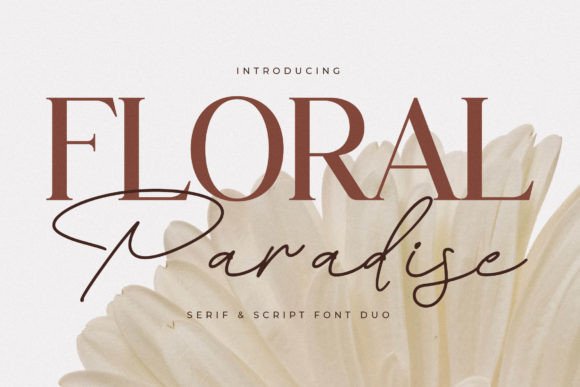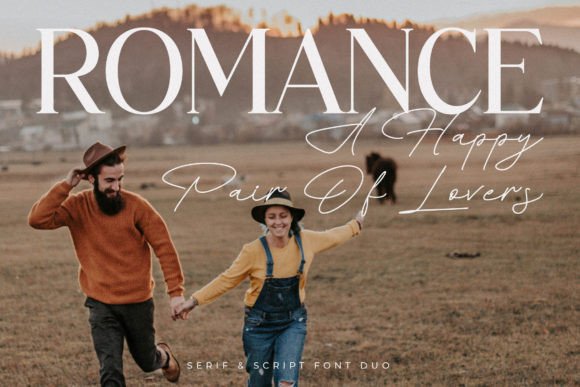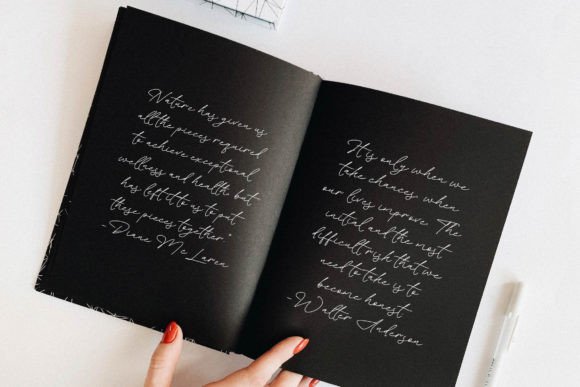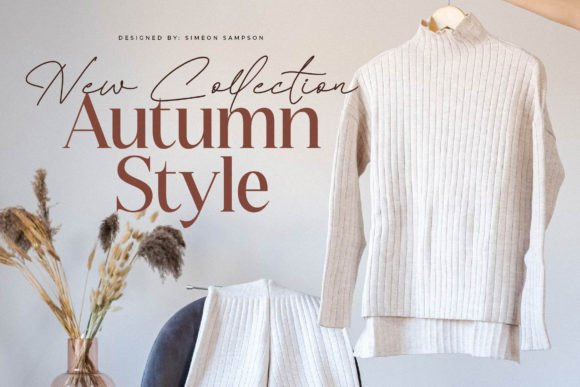
Floral Paradise Font
About the Floral Paradise Font
Make a bold statement with Floral Paradise Font, a powerful and memorable font. Proudly present Floral Paradise Font Duo.
A serif and script typeface that has its own unique style & modern look.
This typeface is perfect for an elegant & luxury logo, book or movie title design, fashion brand, magazine, clothes, lettering, quotes, and so much more.
Floral Paradise’s elegant and modern serif and script combination excels in headline design, branding projects for luxury goods, and short-form editorial layouts such as magazine covers or invitations. Its decorative nature makes it less suitable for body text or UI elements where readability is paramount. Avoid using it for large blocks of text.
The script typeface pairs well with clean sans-serif fonts like Montserrat or Lato for a contemporary feel, while the serif component complements classic serif fonts like Garamond or Playfair Display for a more traditional look. Consider using a geometric sans-serif like Futura for a strong, modern contrast.
The overall personality of Floral Paradise is sophisticated and romantic, lending itself to brands focused on beauty, fashion, or high-end products. Its delicate flourishes and graceful curves communicate luxury and refinement.
Floral Paradise Font Usage Examples
Floral Paradise Font Example